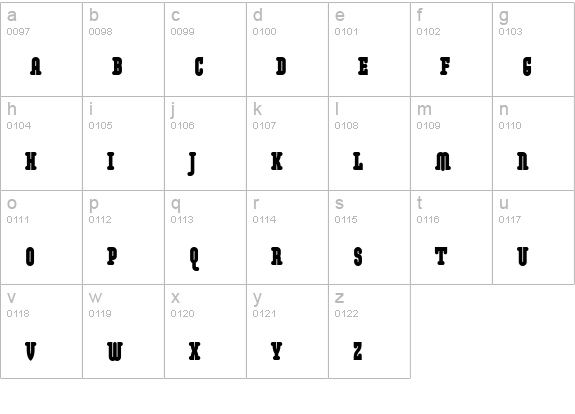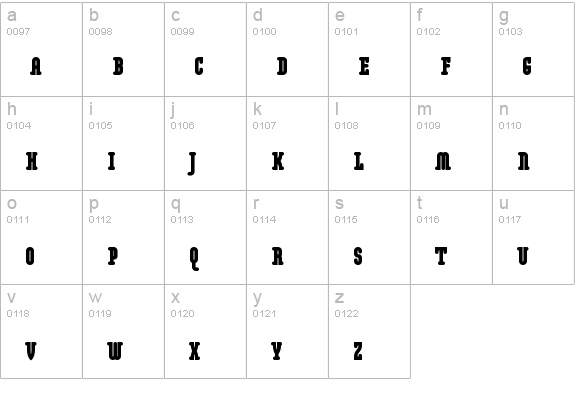
ModulaRoundSerifSmCap-Ultra Font Details
ModulaRoundSerifSmCap-Ultra is an extreme-weight, display variant in the ModulaRoundSerifSmCap typeface family \xE2\x80\x94 well suited to extreme display use where maximum visual weight is required.
ModulaRoundSerifSmCap-Ultra is a distinctive and elegant font that exudes sophistication and charm. Its rounded serifs give it a unique and modern look, making it perfect for a variety of design projects. This font is ideal for creating eye-catching headings, logos, and branding materials. The ultra weight of ModulaRoundSerifSmCap-Ultra adds a bold and powerful touch to any text, making it stand out and command attention. Its small capital letters add a touch of refinement and style, making it a versatile choice for both print and digital designs. Best of all, ModulaRoundSerifSmCap-Ultra is available for free download at FontsMarket.com. This means you can easily access this stunning font and use it in your projects without any cost. Don't miss out on the opportunity to enhance your designs with the beauty and elegance of ModulaRoundSerifSmCap-Ultra.